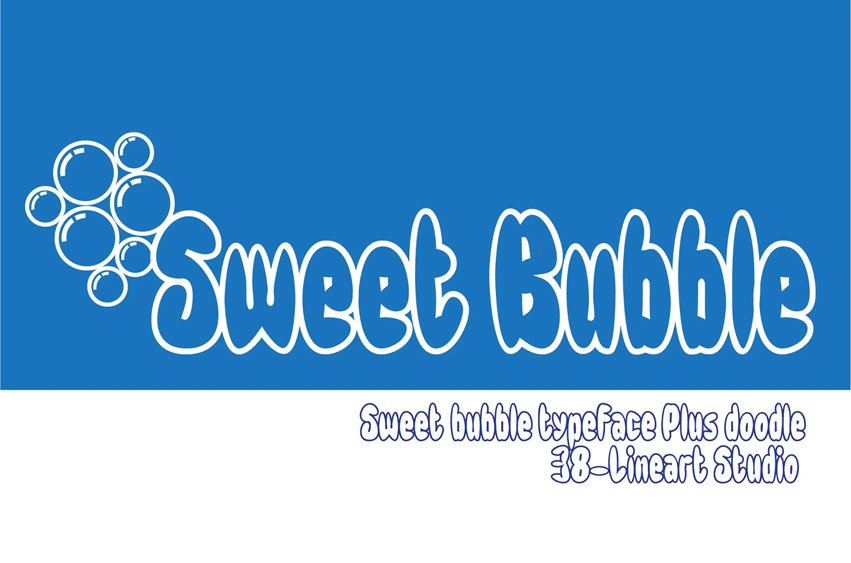
Sweet Bubble Font is a fun, bubbly font that is perfect for headlines and more!
This playful outline font is a great way to give your designs a relaxed and playful vibe; this download comes with extras so you can make coherently themed designs!